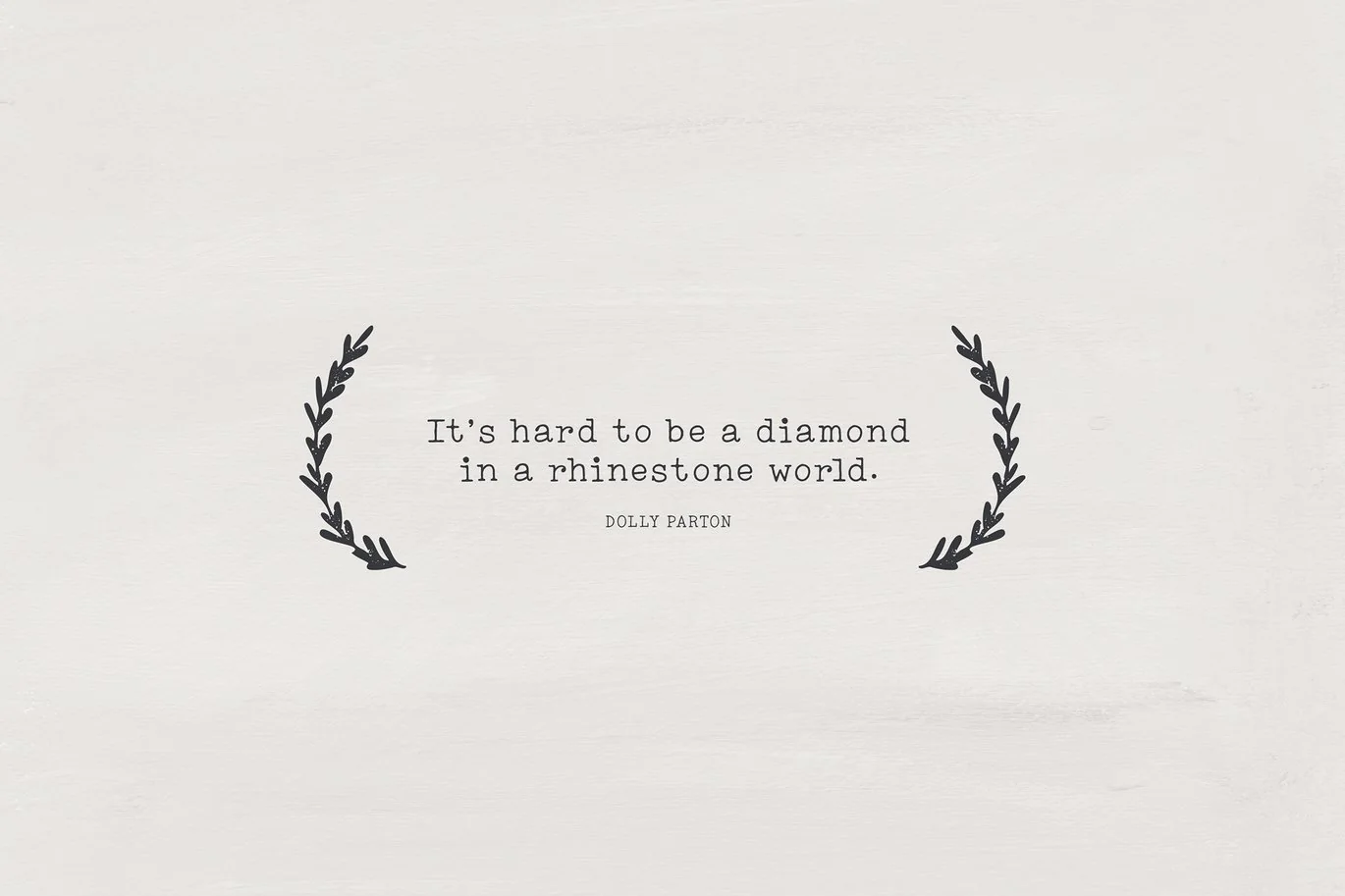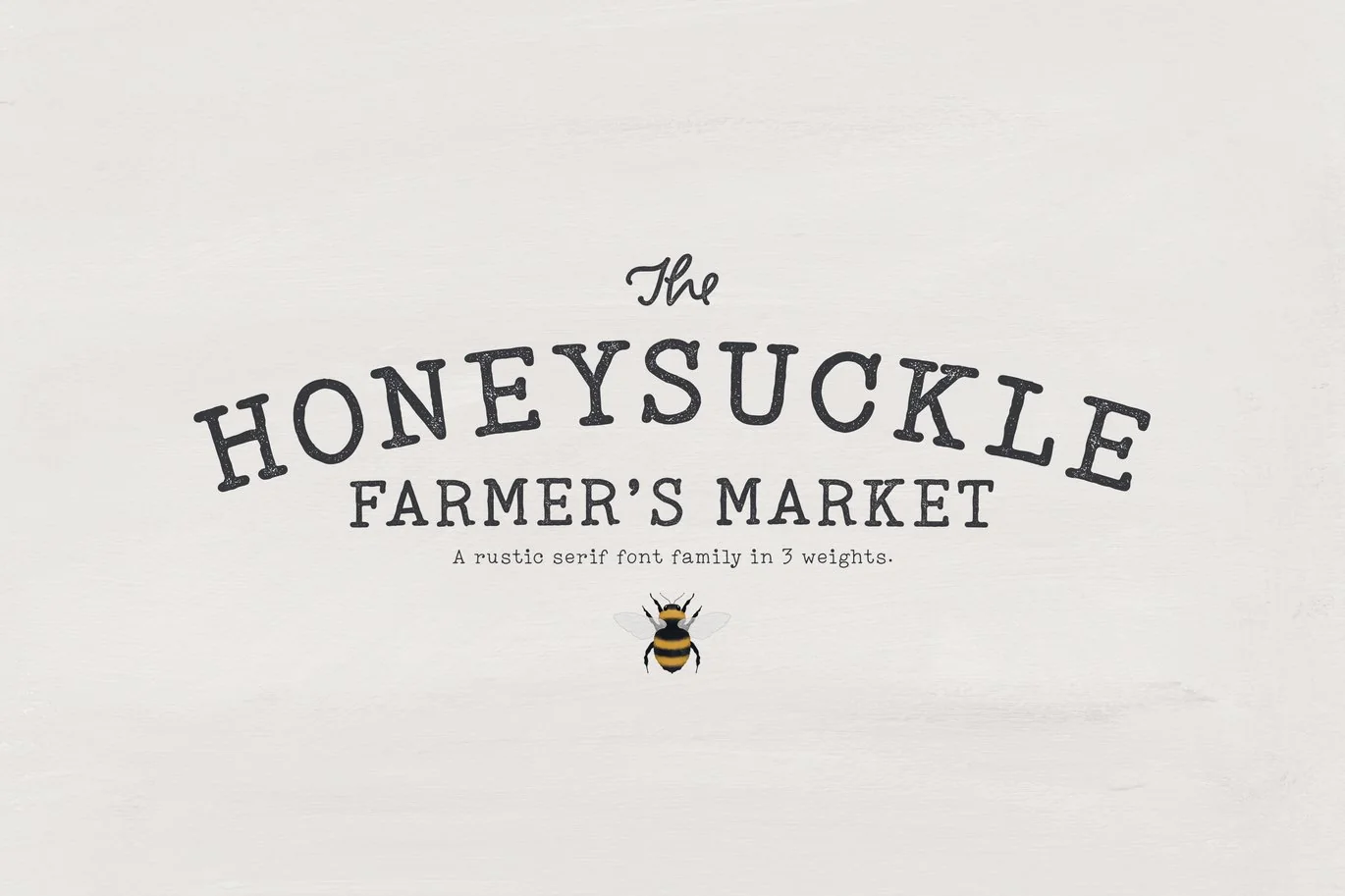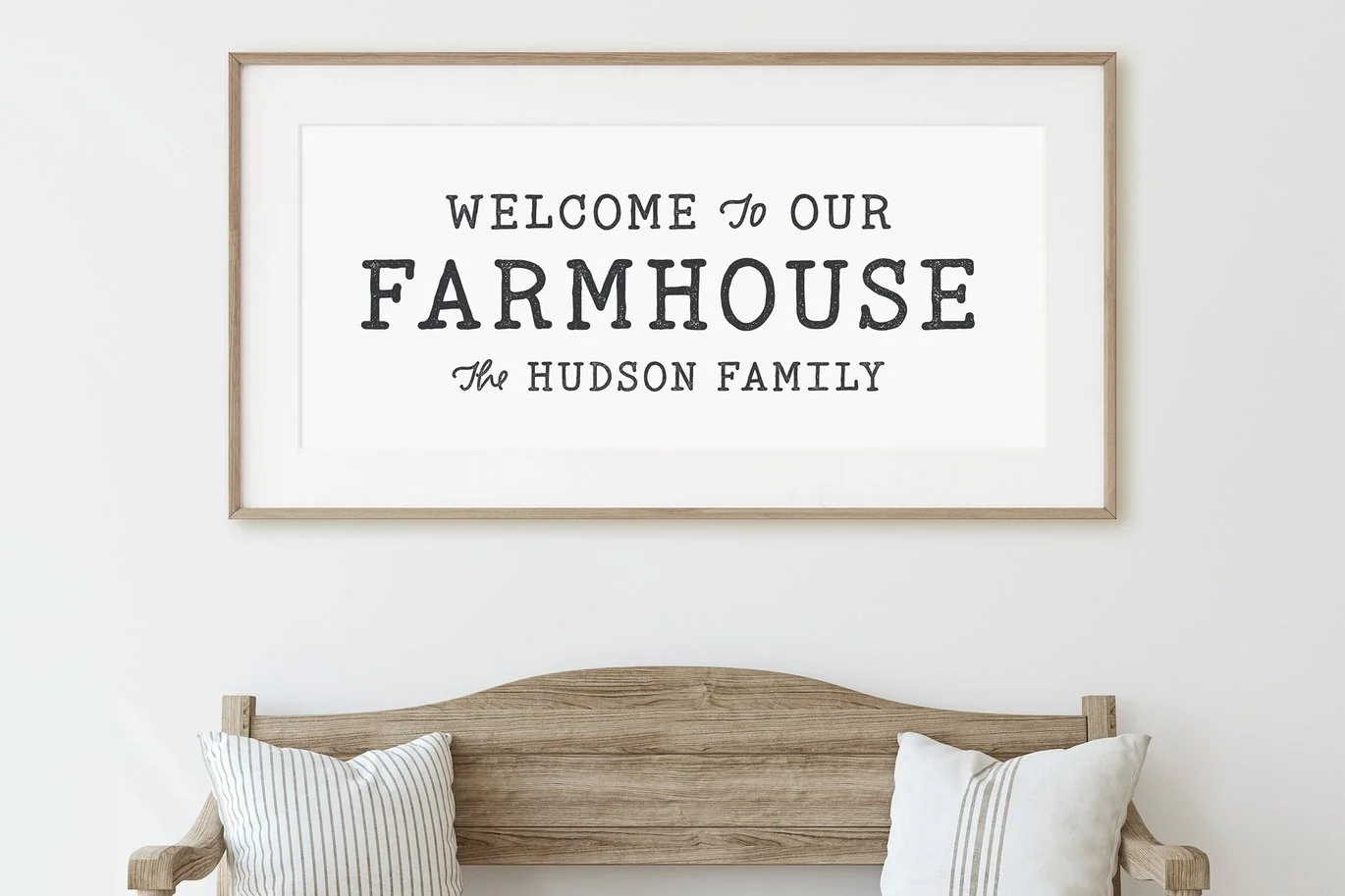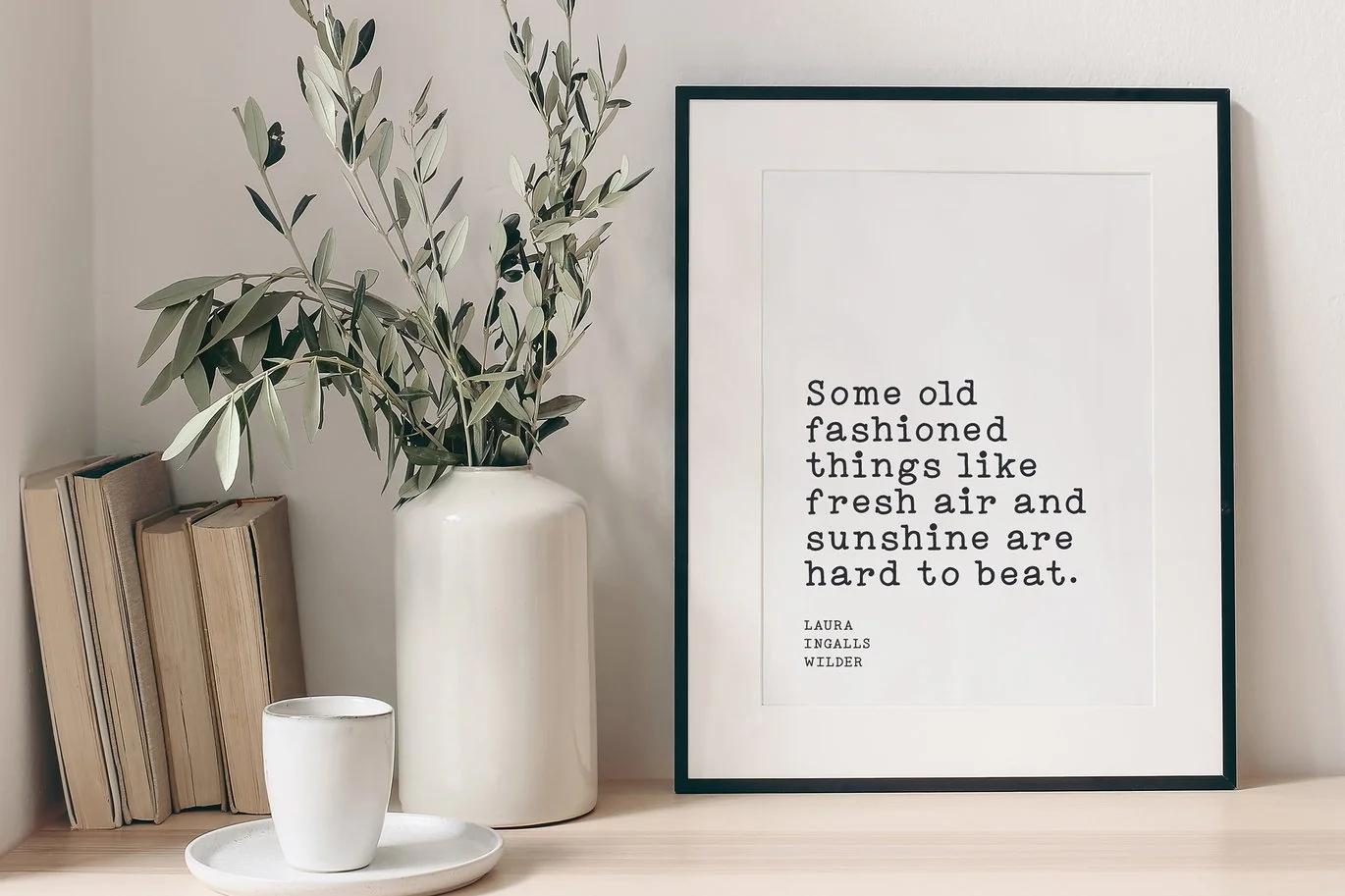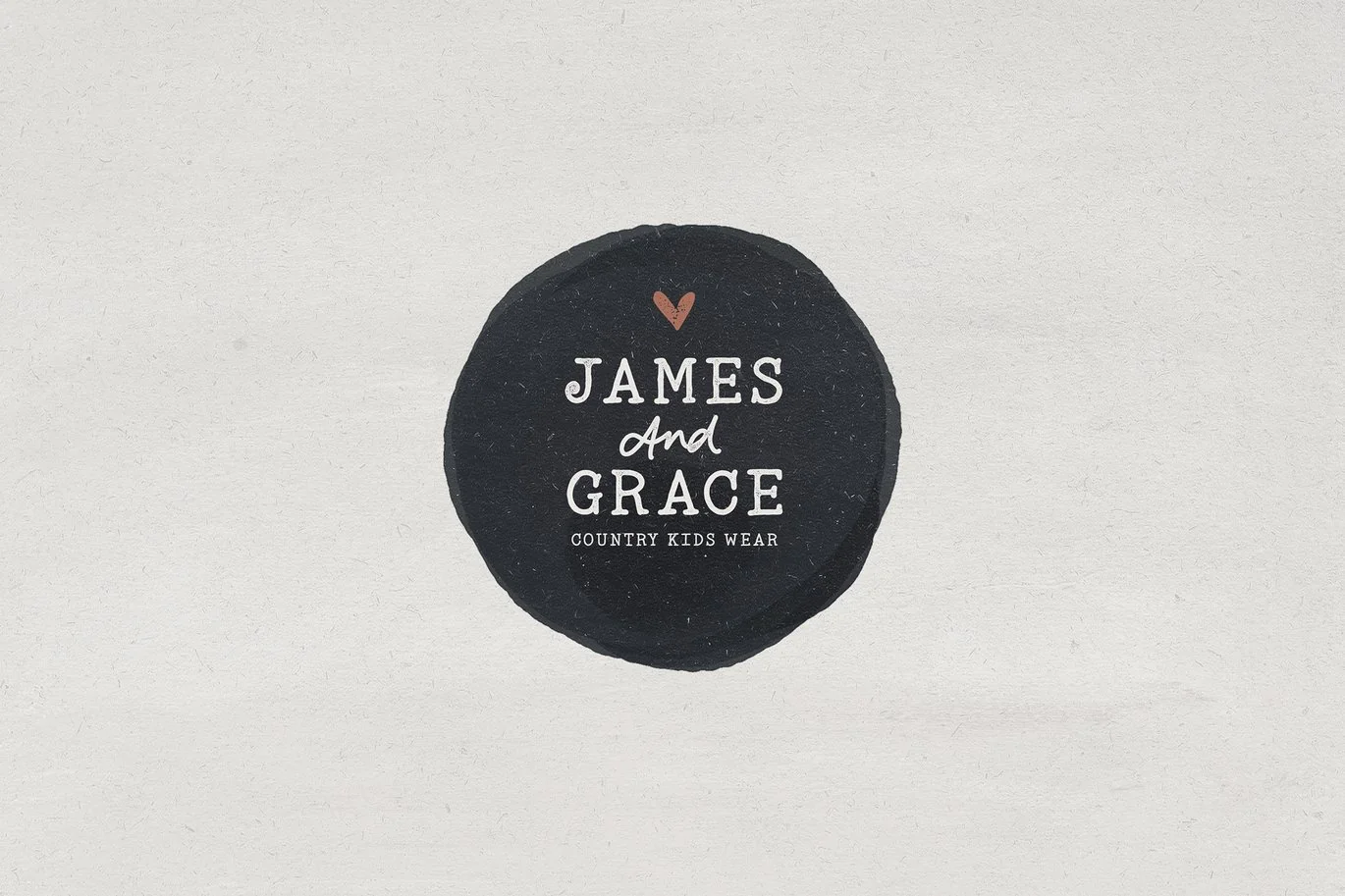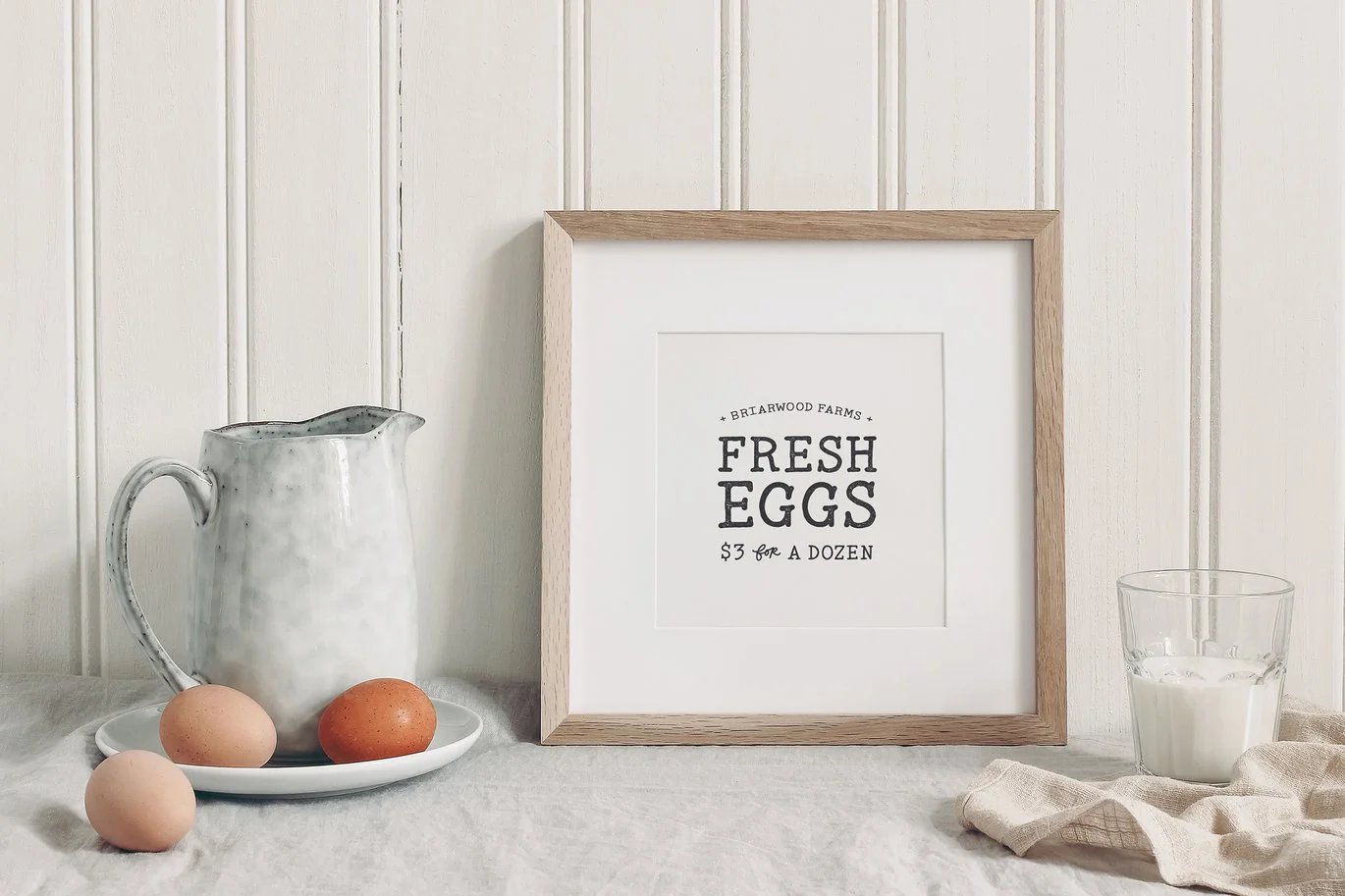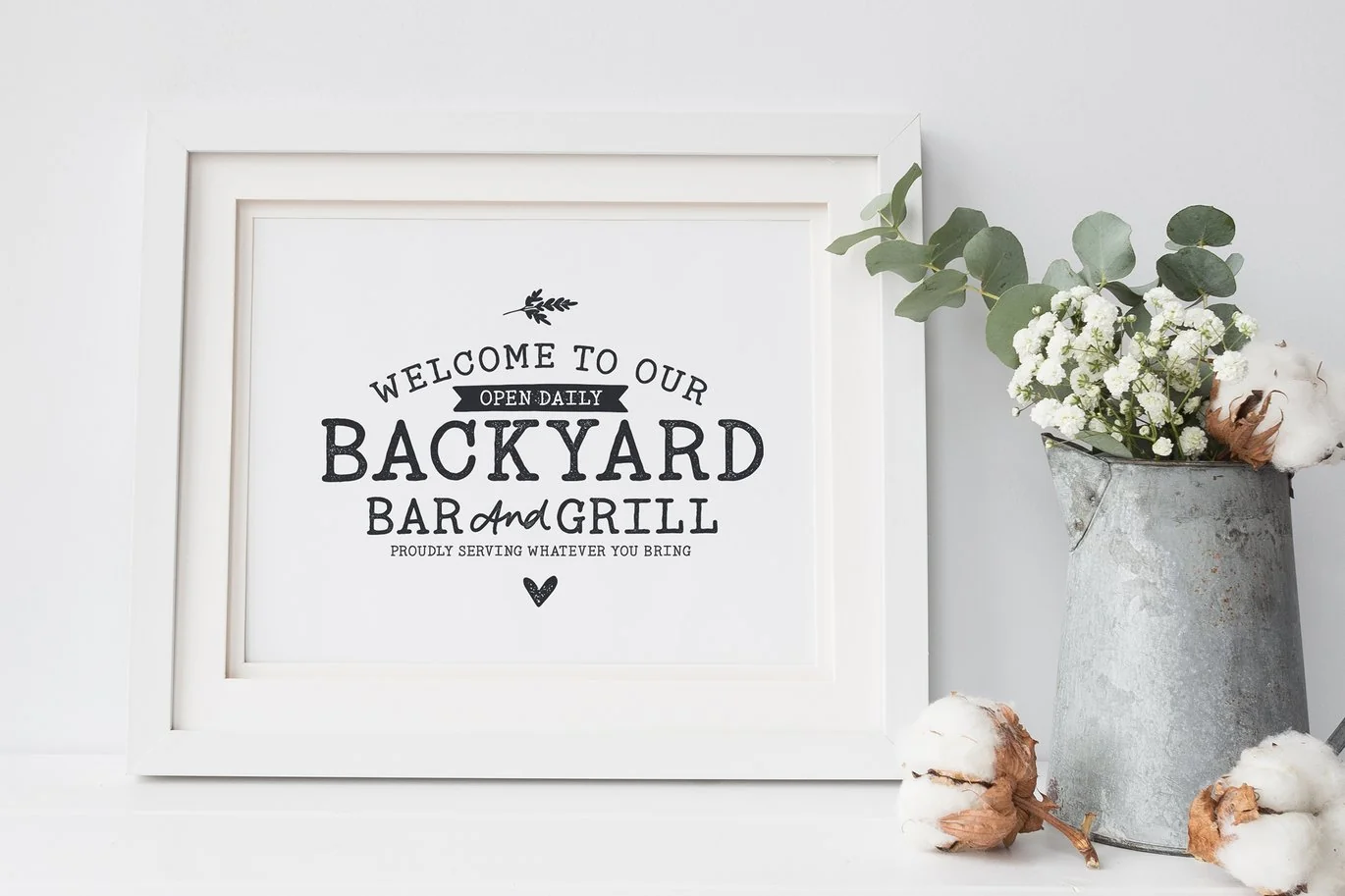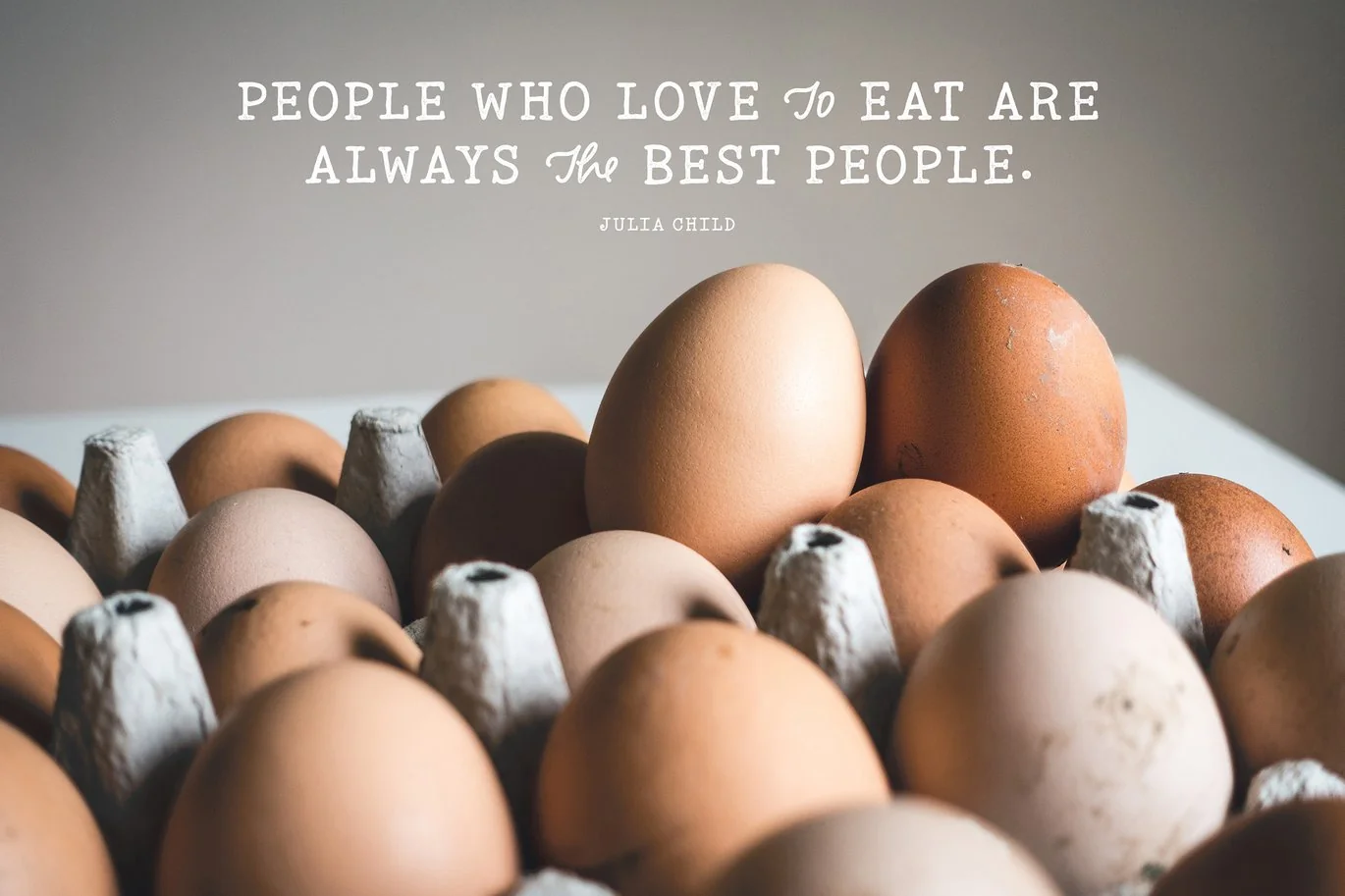
Honeysuckle Market Fonts
I’m a total country girl at heart, and I just love all things FARMHOUSE! ���� So, I figured it was time for another round of country charm. Presenting Honeysuckle Market – a classic, typewriter font in 3 weights, including a textured version.
• Honeysuckle Market Regular (OTF) – A trendy, classic typewriter font built for legibility and streamlined typography.
• Honeysuckle Market Skinny (OTF) – A thin version for delicate designs. This type looks lovely on signage and quotes.
• Honeysuckle Market Bold (OTF) – A weighted version for more dramatic lettering.
• Honeysuckle Market Bold Grit (OTF) – A textured version for a rustic flair.
• Please Note these fonts are NOT smooth, so keep that in mind if you’re working with a Cricut or Silhouette machine.